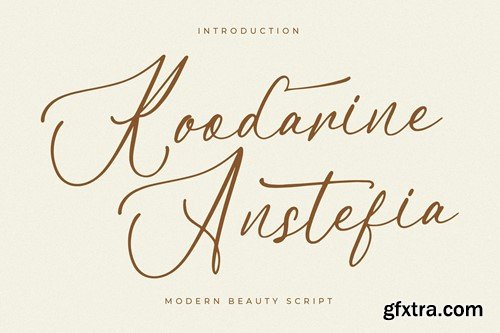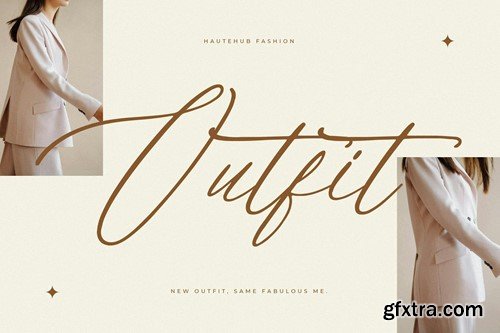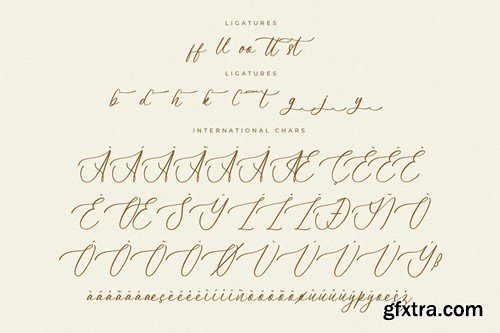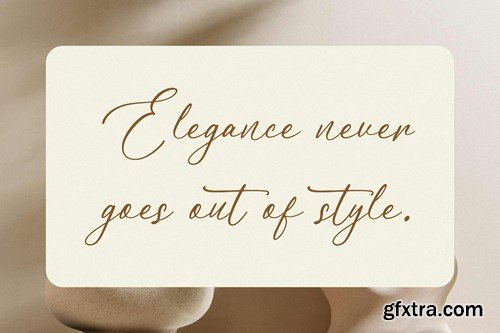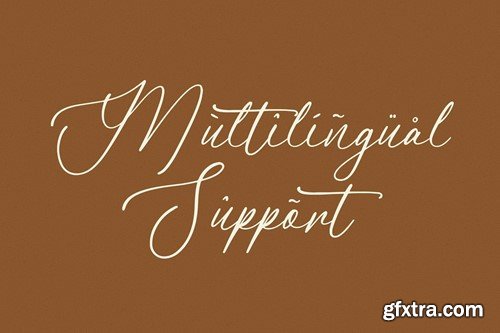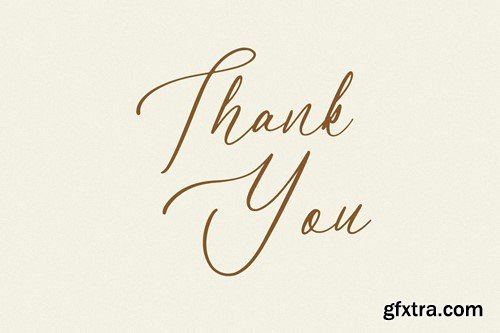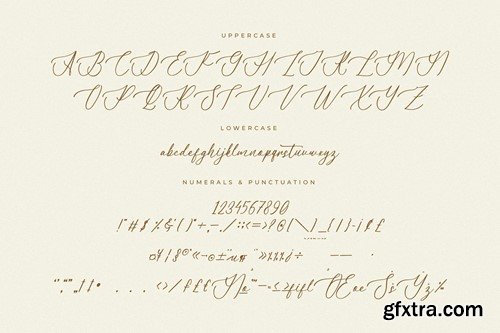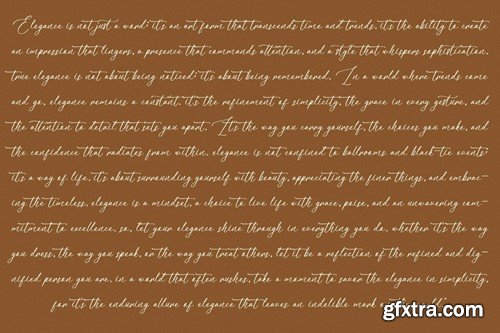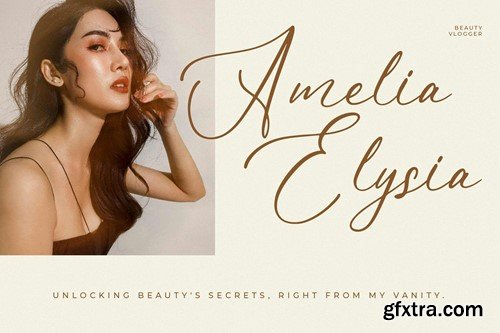
蔻达林娜现代 script 字体 W3BHCXU
Koodarine Anstefia Modern Script Font W3BHCXU
Koodarine Anstefia Modern Script Font
Hi ladies & gentlemen, this is one of our fonts suitable to complement your digital and printed creative products. This font is perfect for posters, social media posts, branding, personal projects, etc.